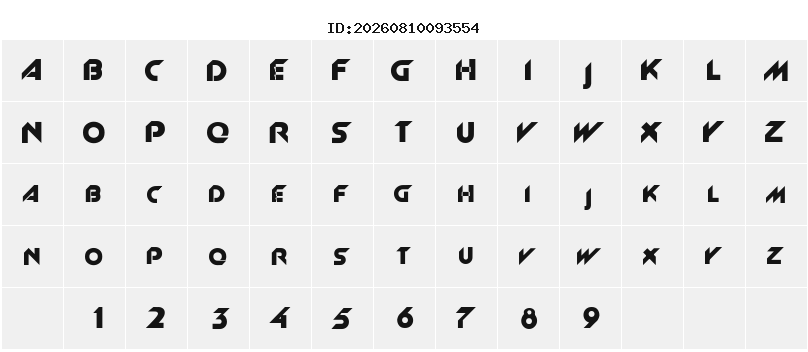
PCAndilarett Preview
• Font Name: PCAndilarett
• Full Font Name: PCAndilarett
• PostScript Name: PCAndilarett
About PCAndilarett.ttf
PCAndilarett.ttf is a modern, elegant sans-serif font designed for ultimate readability and visual harmony. Perfect for branding, headlines, web design, and print materials.